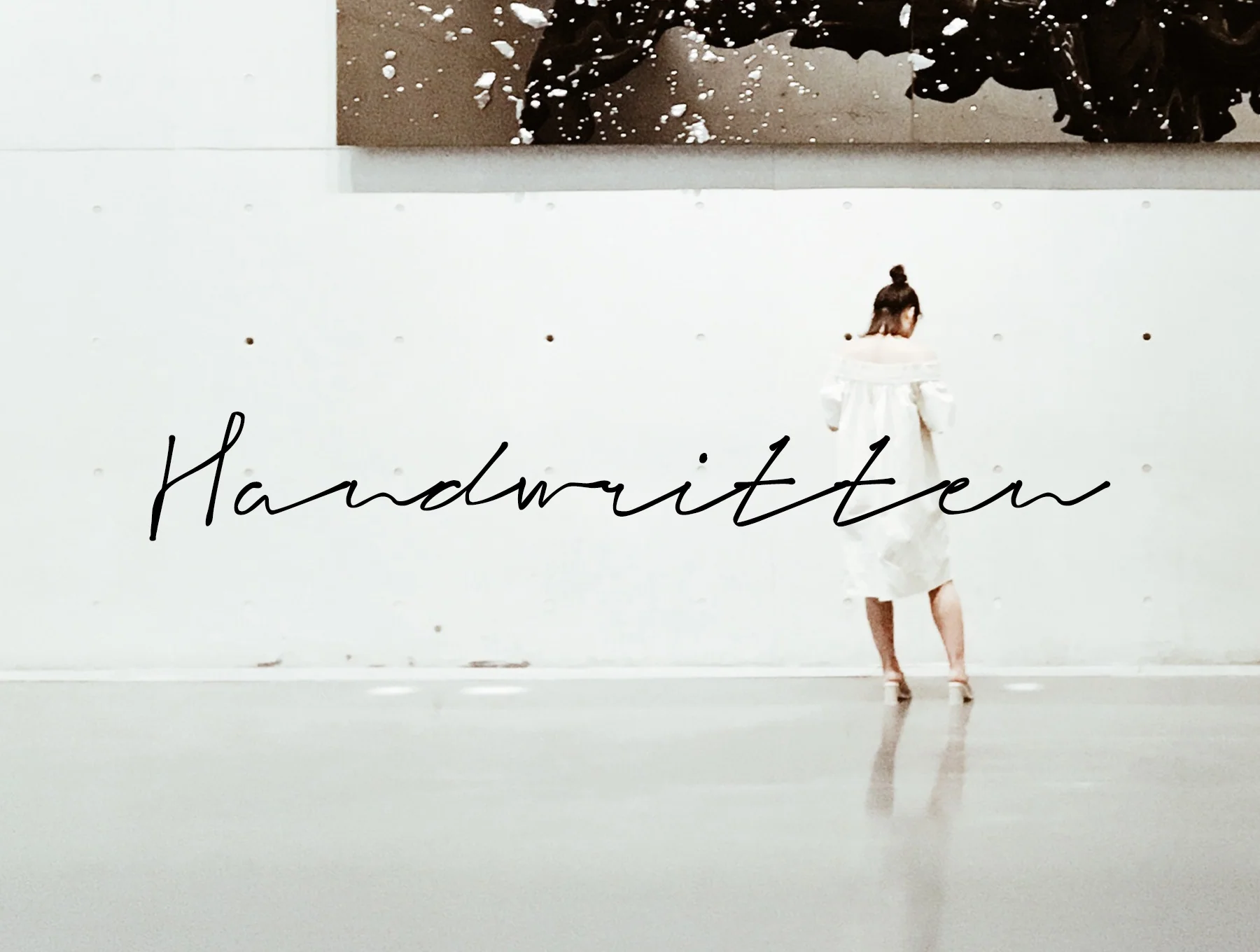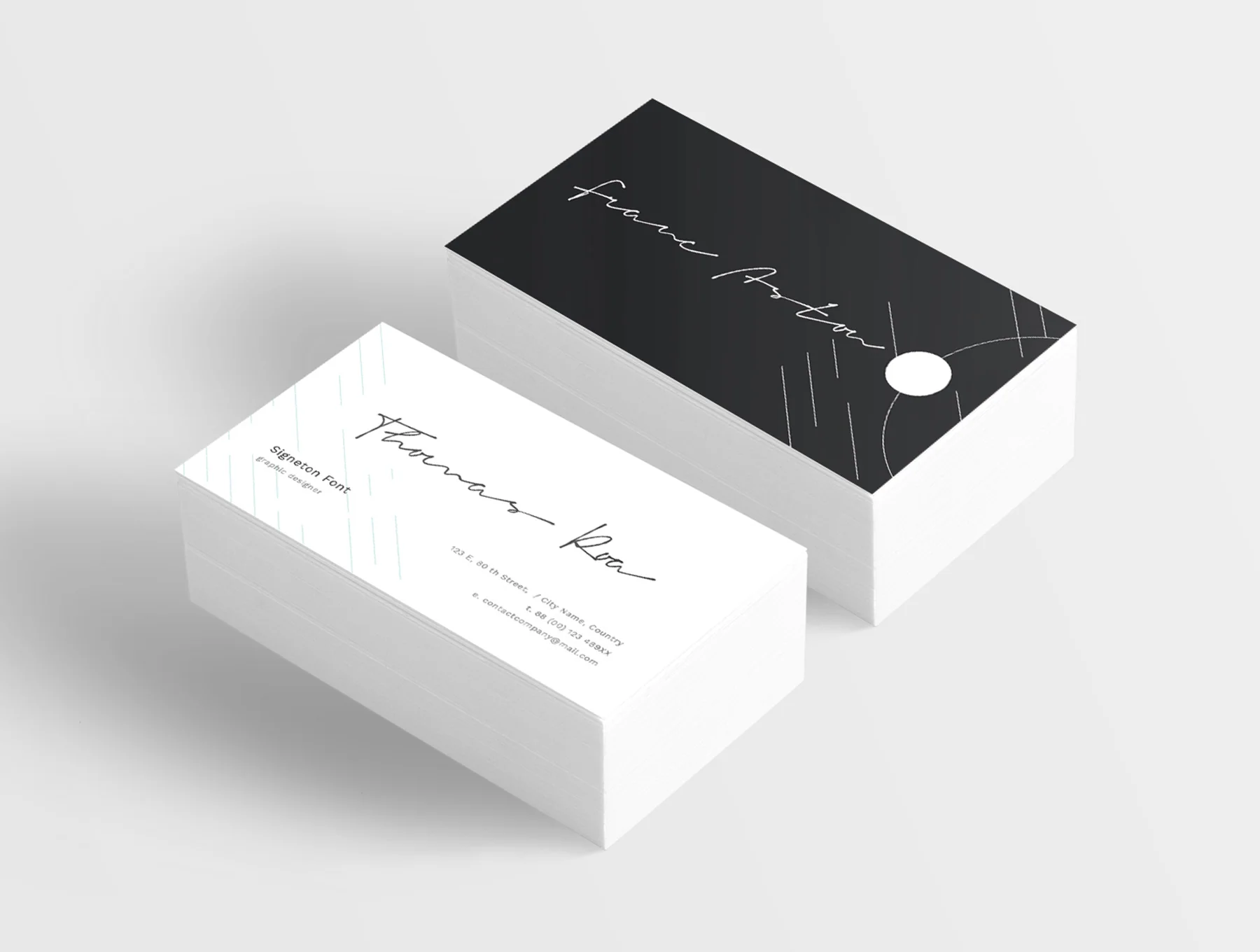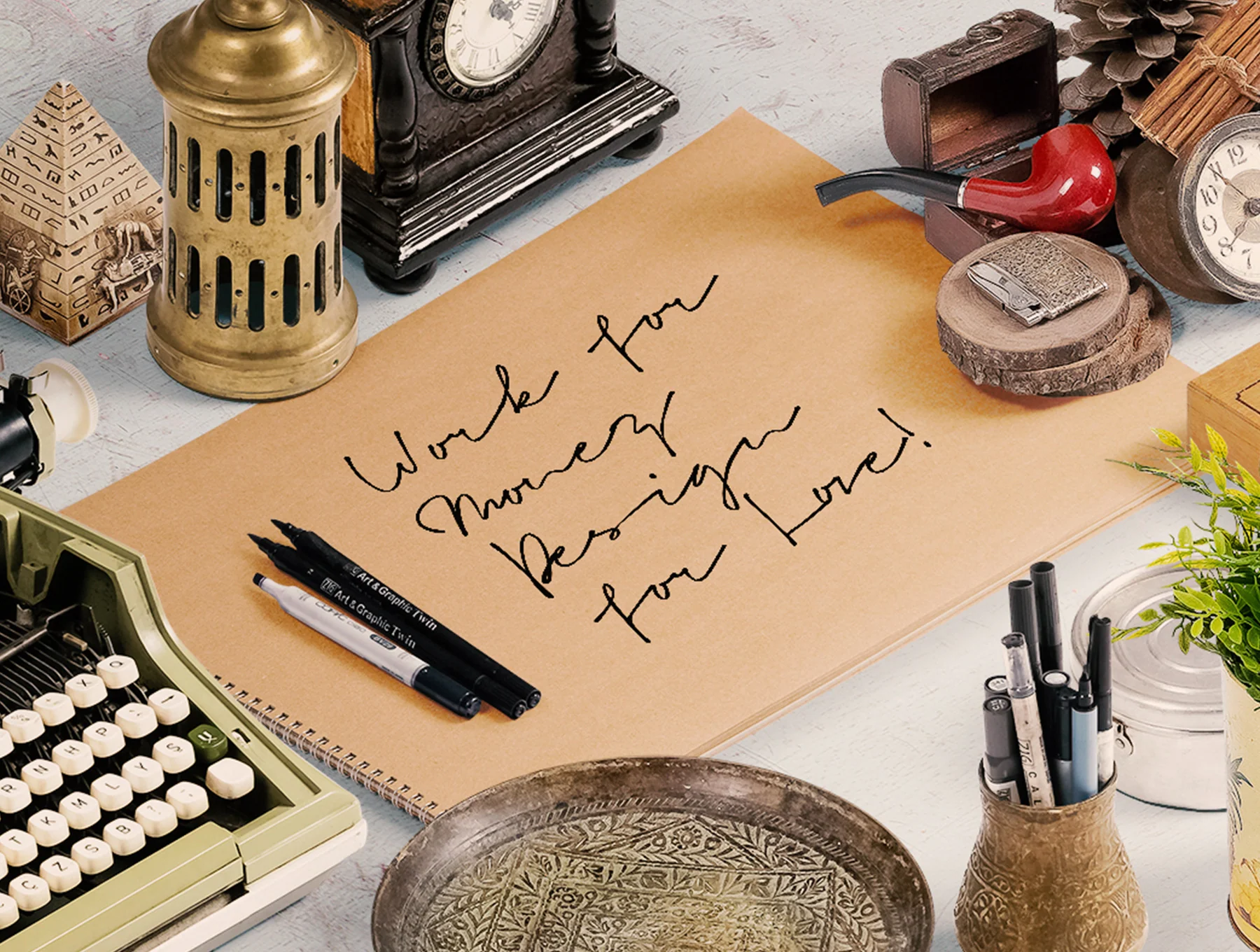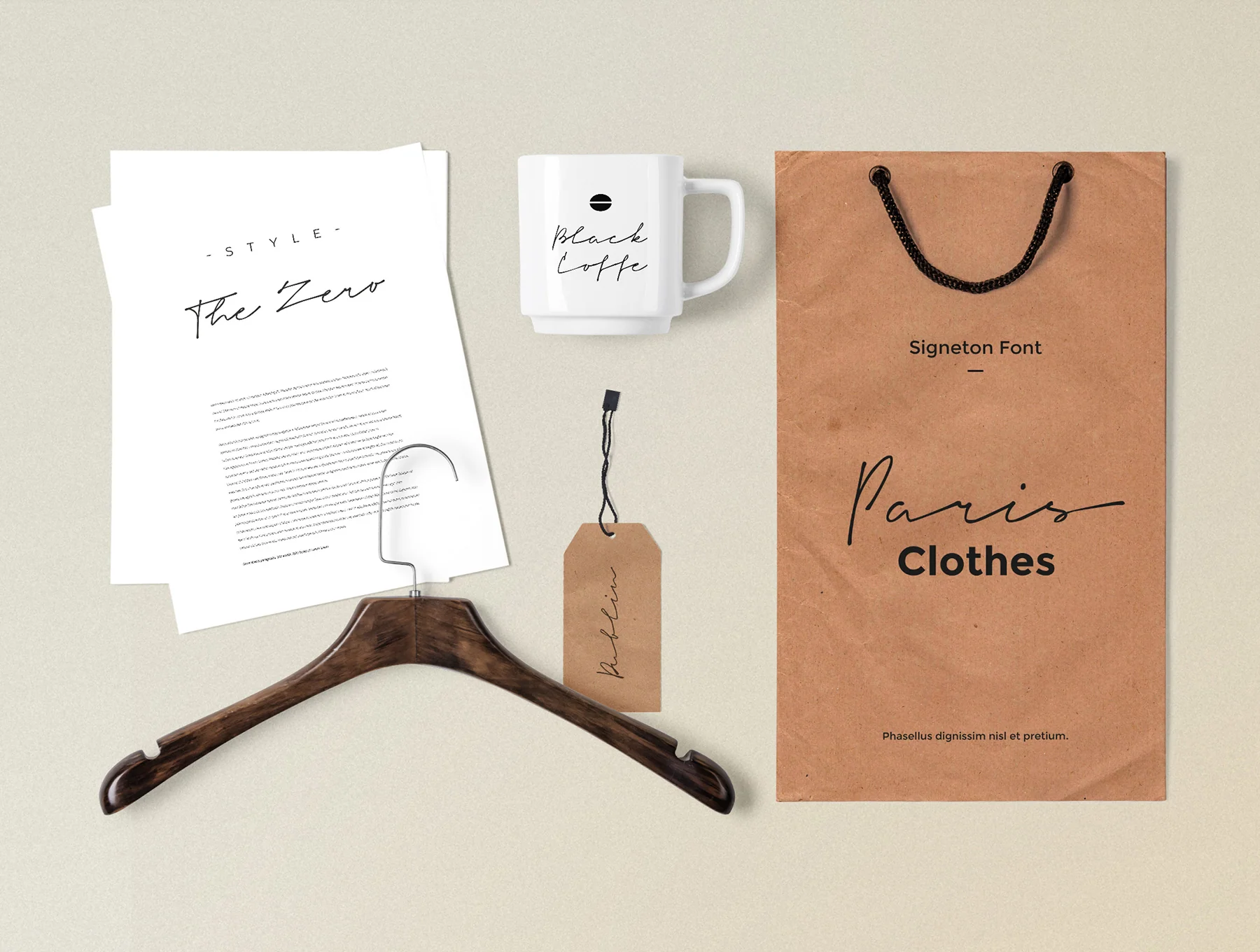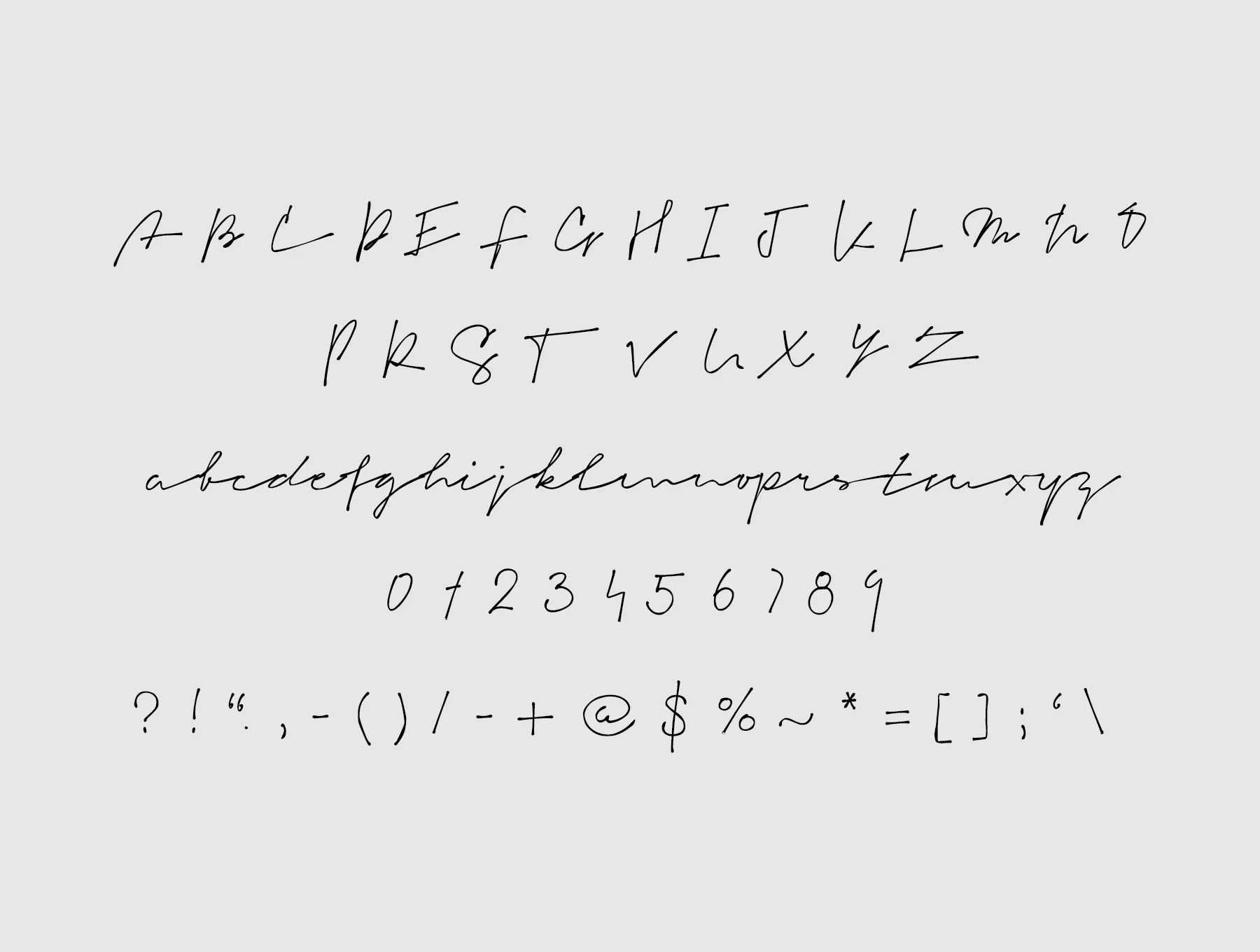
Signeton Font
A typeface that mimics a genuine handwritten signature
Genuine
Made by hand
Distinctive
Bring a natural hand-lettered style to your work with Signeton, a script font for signatures, stationery, logos, quote designs, covers, web headers, apparel, branding, packaging, and more. It includes upper/lowercase letters, numbers, and broad punctuation in TTF, OTF, and WOFF. Install TTF first; OTF is optional, while WOFF is for websites. Support is available by message or comments.